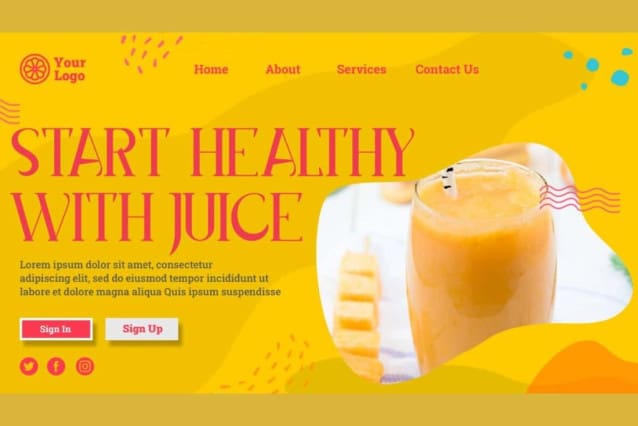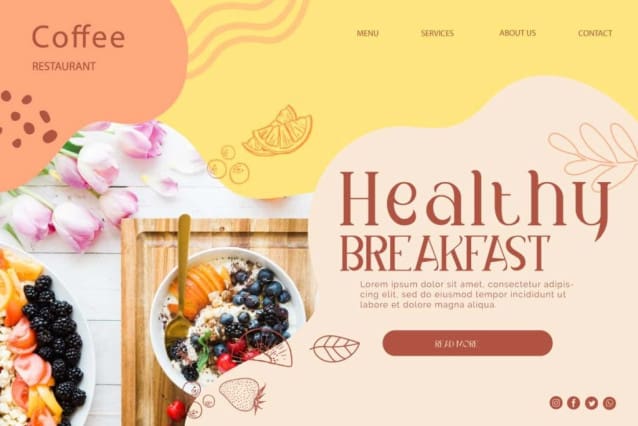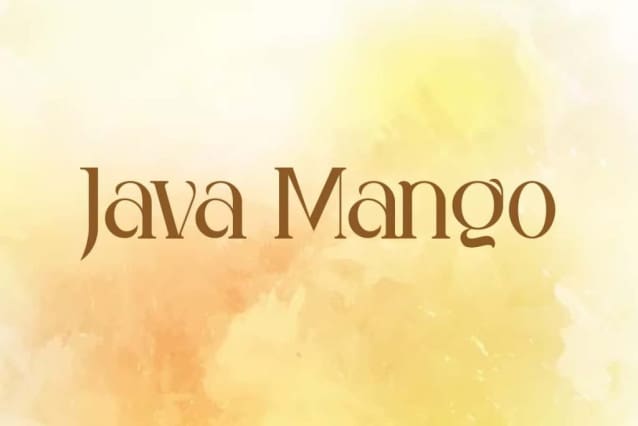
Java Mango Font
Java Mango Font is a vintage and stylish serif display font with a unique vibrant. Useful in any design including headlines, promotions, brand identity, corporate sign, cover, flyer, headline, invitation, label, logo design, notes, packaging design, postcards, poster, quotes, screen printing, signage, stationery, sticker, typographic design, website, and more.
Java Mango Font includes a complete set of Uppercase and Lowercase basic characters, Numbers, Punctuation Marks and Symbols. Specially designed with care in a classic feel for a more authentic look, so it can complement your industry, such as bakery, café, clothing brand, content creator, cosmetic, fashion, florist, furniture, graphic design, photography, restaurant, spa salon, wedding, etc.